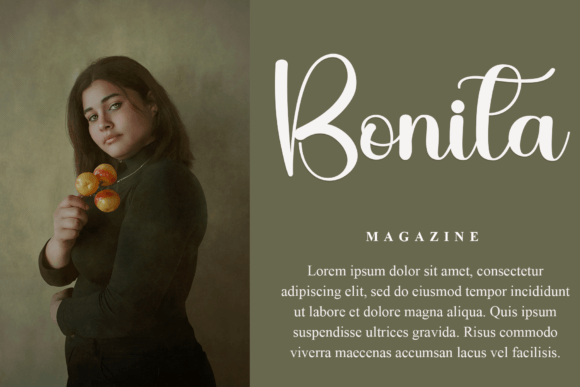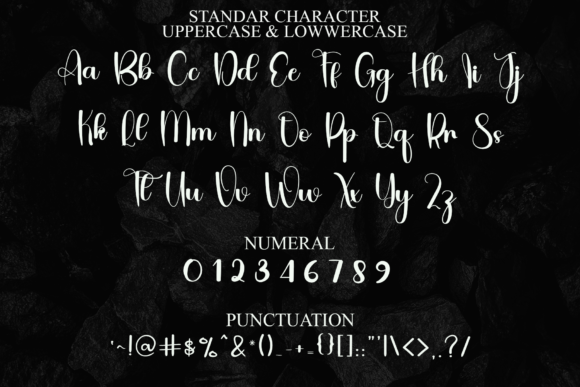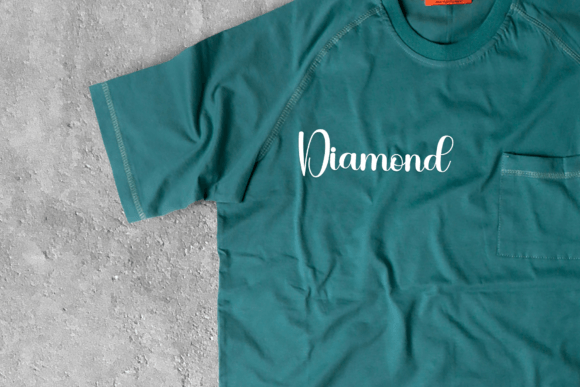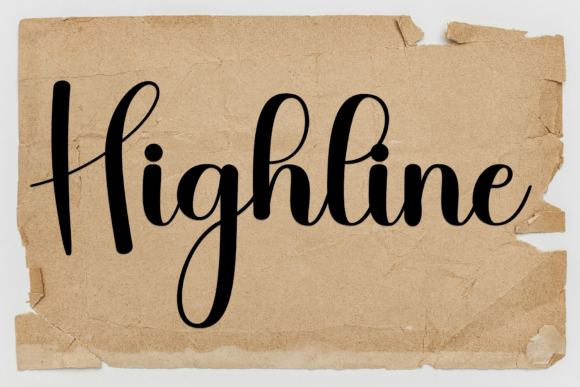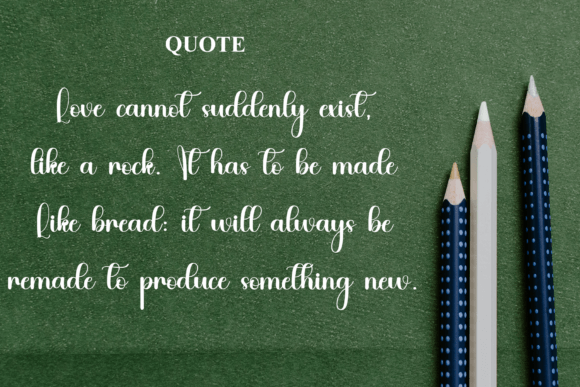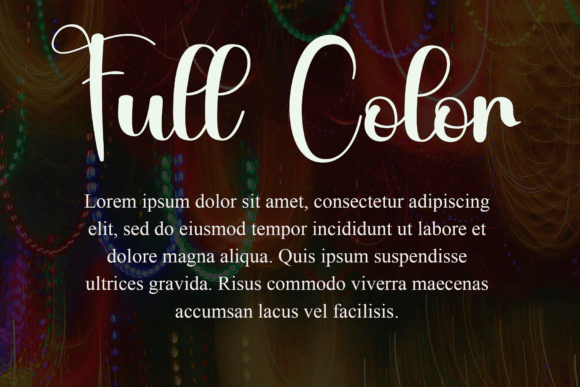
Introducing Brilliant Font: A Timeless Handwritten Masterpiece
Are you on the hunt for a font that can elevate your design game and make your creative projects stand out? Look no further than Brilliant Font, a lovely and timeless handwritten font that’s perfect for creating eye-catching logos, branding, and quotes. With its unique and beautiful touch, Brilliant Font is sure to bring your design to life!
What Makes Brilliant Font So Special?
Brilliant Font boasts a range of features that make it an ideal choice for designers and crafters. Here are just a few reasons why:
- Unique and Beautiful Touch: Every letter in Brilliant Font has a distinct and beautiful touch that sets it apart from other fonts. The font’s handwritten style gives it a personal and organic feel that’s perfect for creating designs that resonate with your audience.
- PUA Encoded: Brilliant Font is PUA (Private Use Area) encoded, which means you can access all of the amazing glyphs and ligatures with ease. This makes it easy to create complex designs and add a touch of elegance to your projects.
- Versatile: Brilliant Font is perfect for a range of design applications, from logos and branding to quotes and social media graphics. Its versatility makes it a valuable addition to any designer’s toolkit.
Why Choose Brilliant Font for Your Design Projects?
There are many reasons why Brilliant Font is an excellent choice for designers and crafters. Here are just a few:
- Elegance: Brilliant Font adds a touch of elegance to any design project. Its beautiful and unique lettering makes it perfect for creating sophisticated logos, branding, and marketing materials.
- Readability: Despite its elegant and handwritten style, Brilliant Font is highly readable, even at small sizes. This makes it perfect for creating designs that need to be both beautiful and functional.
- Customization: With PUA encoding, you can easily access and customize the glyphs and ligatures in Brilliant Font. This allows you to create unique and personalized designs that reflect your brand’s style and personality.
How to Use Brilliant Font in Your Design Projects
Using Brilliant Font in your design projects is easy. Here are a few tips to get you started:
- Logos and Branding: Use Brilliant Font to create stunning logos and branding materials that showcase your brand’s personality and style.
- Quotes and Social Media Graphics: Add a touch of elegance to your quotes and social media graphics with Brilliant Font. Its readability and beauty make it perfect for creating engaging and shareable content.
- Packaging and Stationery: Use Brilliant Font to create beautiful packaging and stationery that reflects your brand’s style and personality.
In conclusion, Brilliant Font is a timeless handwritten font that’s perfect for designers and crafters looking to elevate their design game. With its unique and beautiful touch, PUA encoding, and versatility, Brilliant Font is an excellent choice for creating eye-catching logos, branding, and quotes. Whether you’re a seasoned designer or just starting out, Brilliant Font is a valuable addition to your toolkit.